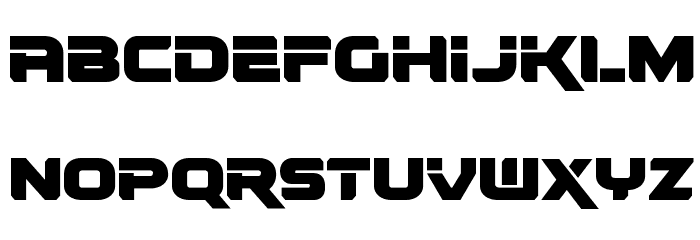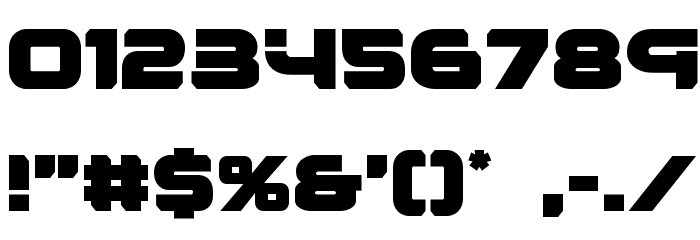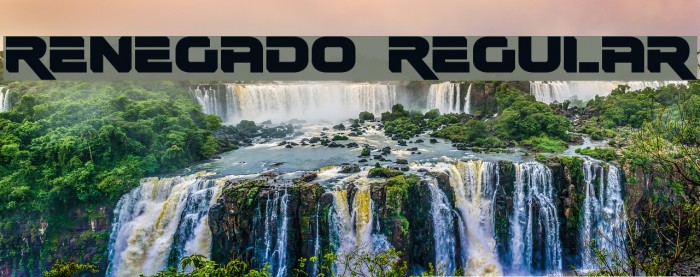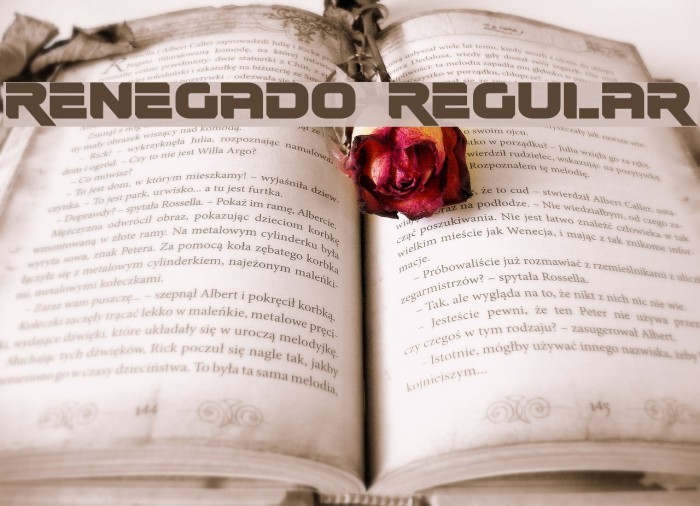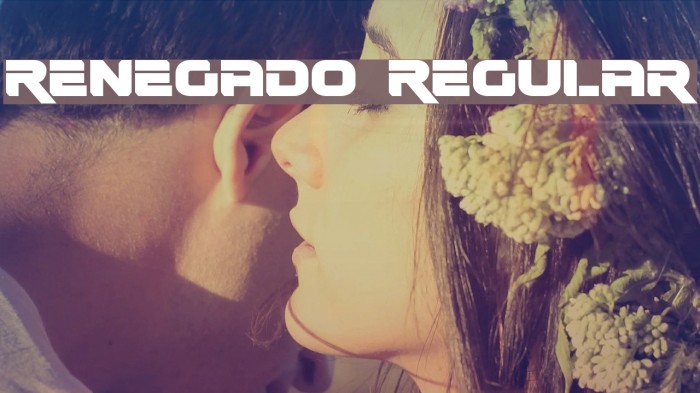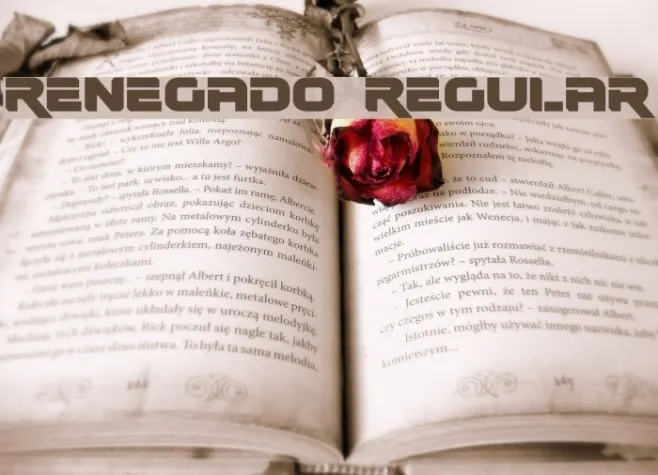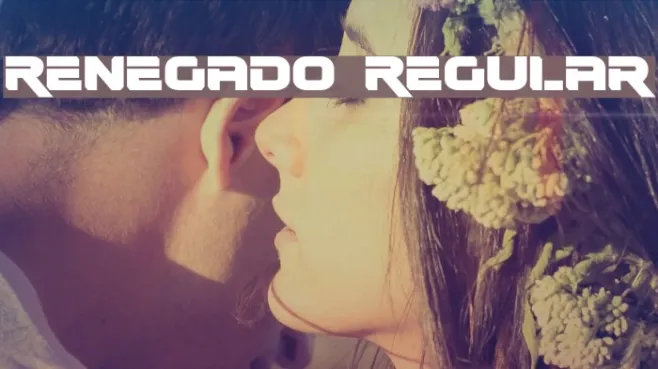
Renegado Regular Font
This font features a bold and futuristic design with a geometric structure. The characters are blocky and robust, with sharp angles and a strong presence. The uppercase and lowercase letters maintain a consistent style, emphasizing a modern and industrial aesthetic. The numbers and special characters are equally bold, ensuring uniformity across all glyphs. This font is ideal for projects that require a strong visual impact, such as branding, posters, and digital media.
- Proposed Projects: Ideal for branding, posters, digital media, and any project needing a strong visual impact.